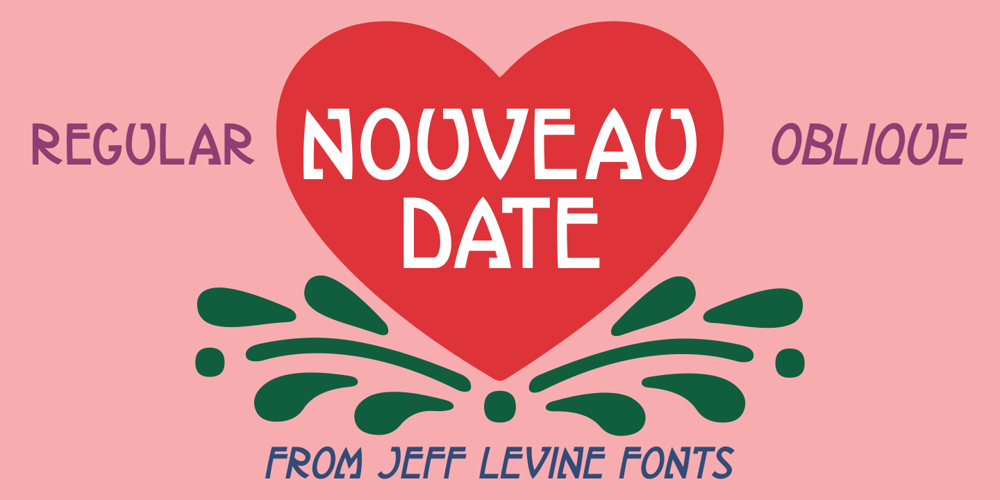
Nouveau Date JNL Font Family was designed by Jeff Levine and published by Jeff Levine. Nouveau Date JNL contains 2 styles and family package options. The hand lettered title on the cover of the 1914 tune “I Want you to Meet My Mother” served as the inspiration for Nouveau Date JNL, which is available in both regular and oblique versions.